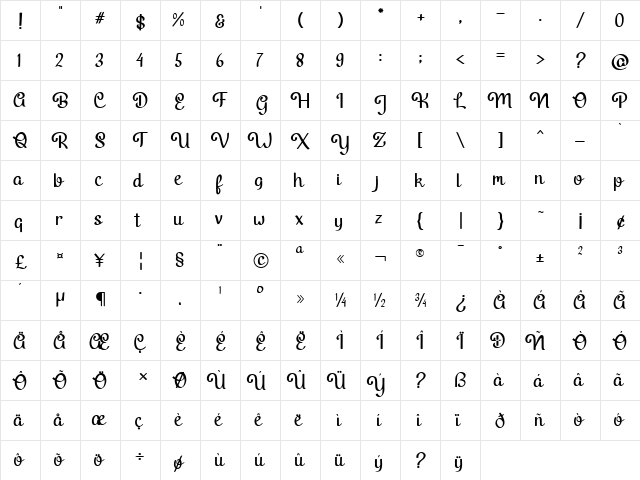
midnight Regular
Design Context for midnight Typeface
midnight is a composed and adaptable typeface that performs quietly and consistently across a wide range of design contexts.